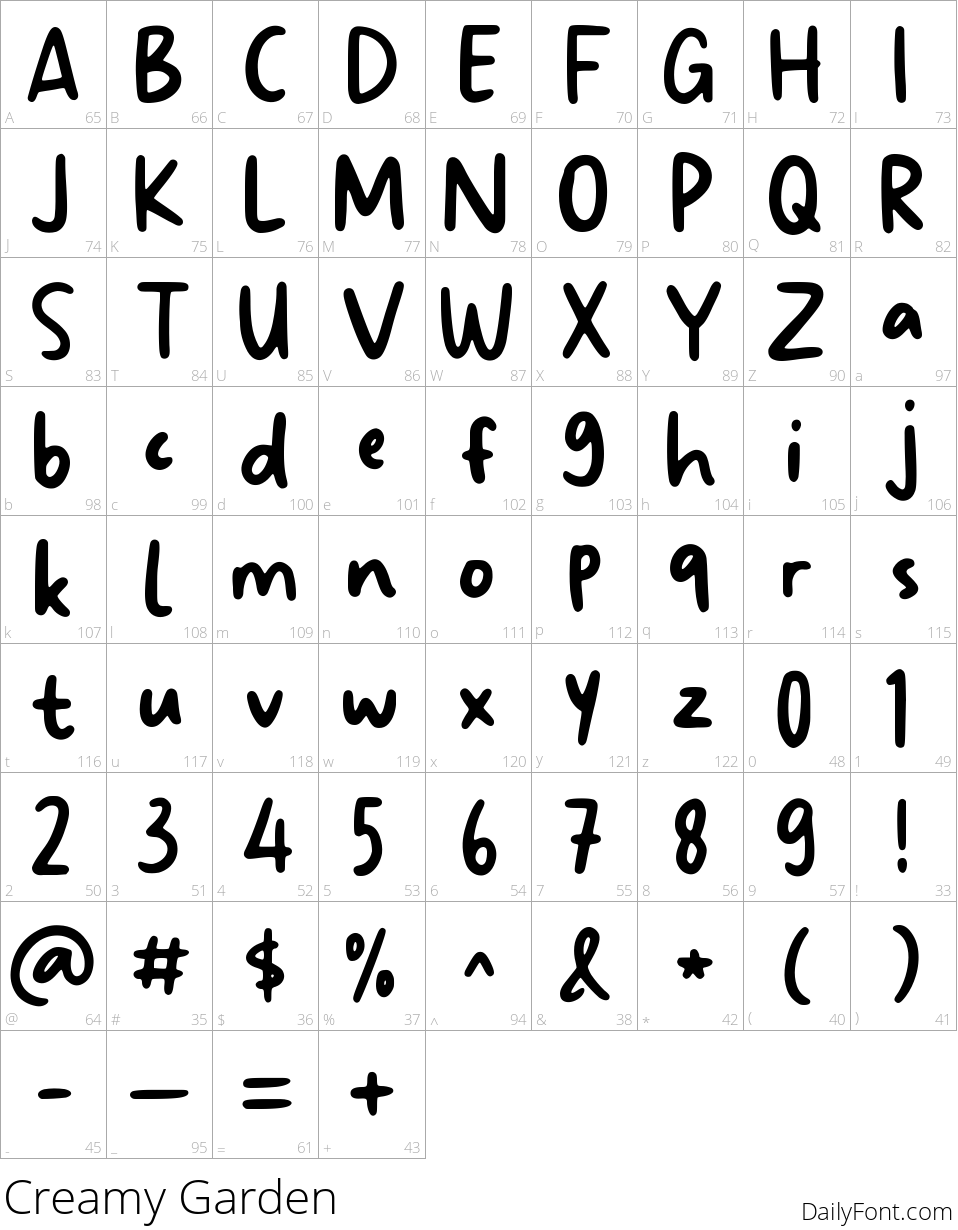
Creamy Garden
Introducing Creamy Garden, a delightful handwritten font that brings a touch of whimsy and charm to any project. With its playful strokes and unique character, Creamy Garden is perfect for titles, logos, product packaging, and branding projects. Whether you’re designing for a magazine, creating eye-catching social media graphics, or planning a wedding invitation, this font adds an artistic flair that captivates audiences.
What sets Creamy Garden apart is its versatility. It can seamlessly blend with various backgrounds, making it an excellent choice for both digital and print media. Its fun aesthetic is sure to engage users and elevate the overall design of your project. Use Creamy Garden to express your creativity and make your designs stand out. From casual notes to formal invitations, this font caters to a wide range of styles and themes, making it an essential addition to any designer’s toolkit.